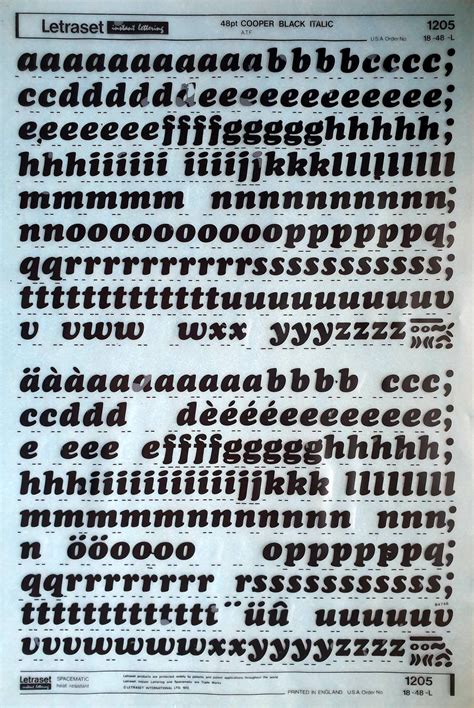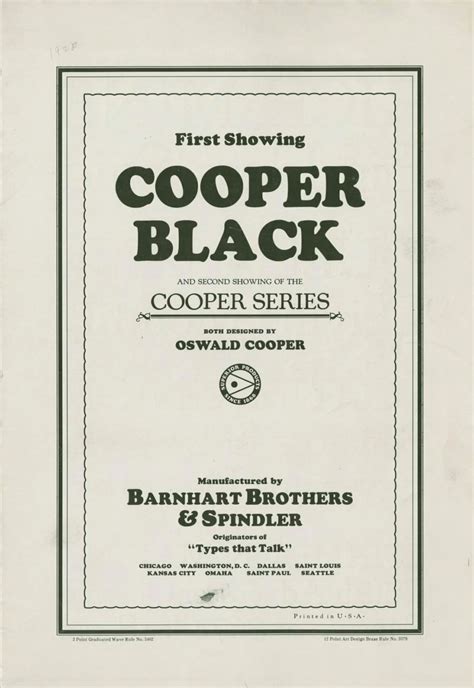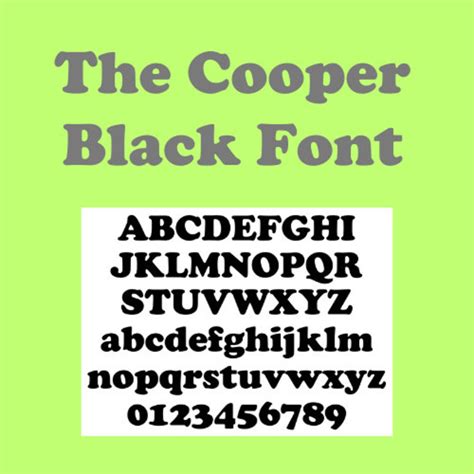
In the world of typography, fonts play a crucial role in setting the tone and style of any design project. Among the myriad of font styles available, Cooper Like Fonts stand out for their unique characteristics and versatility. These fonts are inspired by the classic Cooper Black typeface, which was designed by Oswald Bruce Cooper in 1922. Cooper Black is known for its bold, condensed letters and distinctive serifs, making it a popular choice for headlines and display text. Cooper Like Fonts capture the essence of this classic design while offering modern twists and variations.
Understanding Cooper Like Fonts
Cooper Like Fonts are a category of typefaces that emulate the style of Cooper Black but with added features and modifications. These fonts are often used in graphic design, advertising, and branding to create a strong visual impact. The key characteristics of Cooper Like Fonts include:
- Bold and Condensed Letters: Like the original Cooper Black, these fonts feature thick, condensed letters that make them stand out.
- Distinctive Serifs: The serifs in Cooper Like Fonts are often exaggerated, adding a touch of elegance and sophistication.
- Versatility: These fonts can be used in a variety of contexts, from headlines and logos to posters and packaging.
Popular Cooper Like Fonts
There are several popular Cooper Like Fonts that designers often turn to for their projects. Some of the most notable ones include:
- Cooper Black: The original font designed by Oswald Bruce Cooper, known for its bold and condensed style.
- Cooper Std: A modernized version of Cooper Black, offering improved legibility and additional weights.
- Cooper Black Italic: An italic version of Cooper Black, adding a dynamic slant to the classic design.
- Cooper Black Condensed: A more condensed version of Cooper Black, perfect for space-constrained designs.
Using Cooper Like Fonts in Design
Cooper Like Fonts are highly versatile and can be used in a variety of design projects. Here are some tips on how to effectively use these fonts in your designs:
- Headlines and Titles: Due to their bold and condensed nature, Cooper Like Fonts are ideal for headlines and titles. They grab attention and make a strong visual impact.
- Logos and Branding: These fonts can be used to create memorable logos and branding elements. Their distinctive serifs and bold letters make them stand out.
- Posters and Flyers: Cooper Like Fonts are perfect for posters and flyers, where you need to convey information quickly and effectively.
- Packaging Design: The bold and condensed style of these fonts makes them suitable for packaging design, where space is often limited.
Designing with Cooper Like Fonts
When designing with Cooper Like Fonts, it's important to consider the overall aesthetic and readability of your project. Here are some best practices to keep in mind:
- Pairing with Other Fonts: Cooper Like Fonts can be paired with a variety of other fonts to create a balanced design. Consider using a lighter, more legible font for body text to complement the bold headlines.
- Color and Contrast: Use contrasting colors to make the text stand out. Dark backgrounds with light text or vice versa can enhance the readability and visual impact.
- Spacing and Alignment: Pay attention to letter spacing and line height to ensure the text is easy to read. Proper alignment can also improve the overall aesthetic of your design.
Here is an example of how you can pair Cooper Like Fonts with other fonts in a design project:
| Font Pairing | Usage |
|---|---|
| Cooper Black + Helvetica | Headlines and body text |
| Cooper Std + Arial | Logos and branding |
| Cooper Black Italic + Times New Roman | Posters and flyers |
📝 Note: When pairing fonts, ensure that the styles complement each other and do not clash. Consider the overall tone and message of your design project.
Cooper Like Fonts in Digital Media
In the digital age, Cooper Like Fonts are not limited to print media. They are widely used in web design, mobile apps, and digital advertising. Here are some ways to incorporate these fonts into digital projects:
- Web Headers: Use Cooper Like Fonts for web headers to create a strong visual impact and improve user engagement.
- Mobile App Design: These fonts can be used in mobile app design to create eye-catching interfaces and improve user experience.
- Digital Advertising: Cooper Like Fonts are perfect for digital ads, where you need to grab attention quickly and convey your message effectively.
When using Cooper Like Fonts in digital media, it's important to consider the following:
- Responsiveness: Ensure that the fonts are responsive and look good on different screen sizes and devices.
- Load Times: Optimize the fonts to reduce load times and improve the overall performance of your digital project.
- Accessibility: Make sure the fonts are accessible to all users, including those with visual impairments.
📝 Note: Always test your digital designs on various devices and screen sizes to ensure optimal performance and readability.
In conclusion, Cooper Like Fonts offer a unique blend of classic and modern design elements, making them a popular choice for designers and brands alike. Their bold, condensed letters and distinctive serifs make them stand out in any design project, from print to digital media. By incorporating Cooper Like Fonts into your designs, you can create visually stunning and impactful projects that capture attention and convey your message effectively. Whether you’re working on a branding project, an advertising campaign, or a digital design, Cooper Like Fonts are a versatile and stylish choice that can help you achieve your design goals.